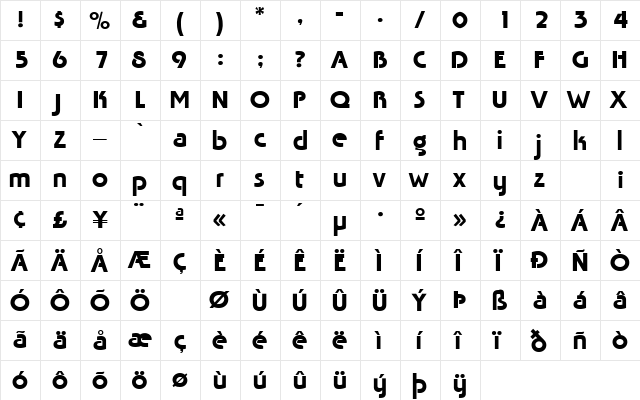
Mingle Regular
Design Context for Mingle Typeface
Mingle takes a measured approach to typography — its balanced proportions and neutral character make it a reliable workhorse for both digital and print work.